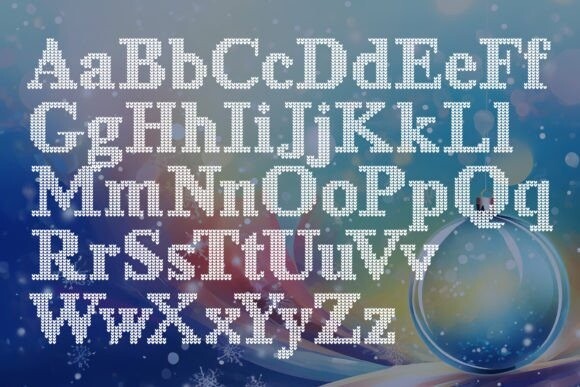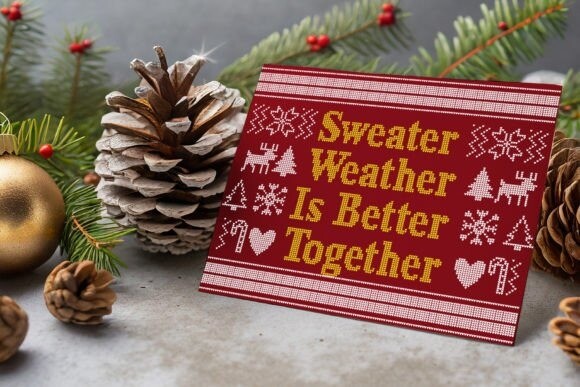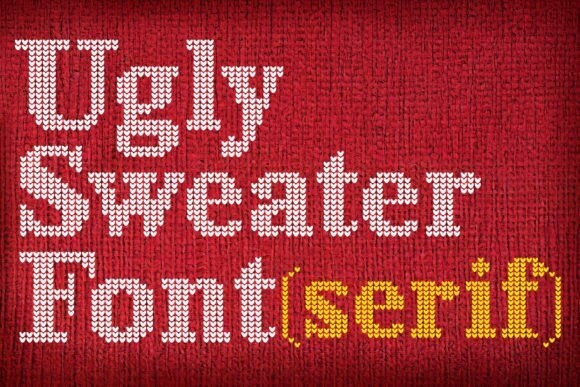
Ugly Sweater Font
Ugly Sweater Font, Embrace the holiday spirit with this Ugly Sweater Serif font. It’s not just a font; it’s a celebration of the season’s joy and fun. Add it to your design toolkit today and start crafting your holiday magic!